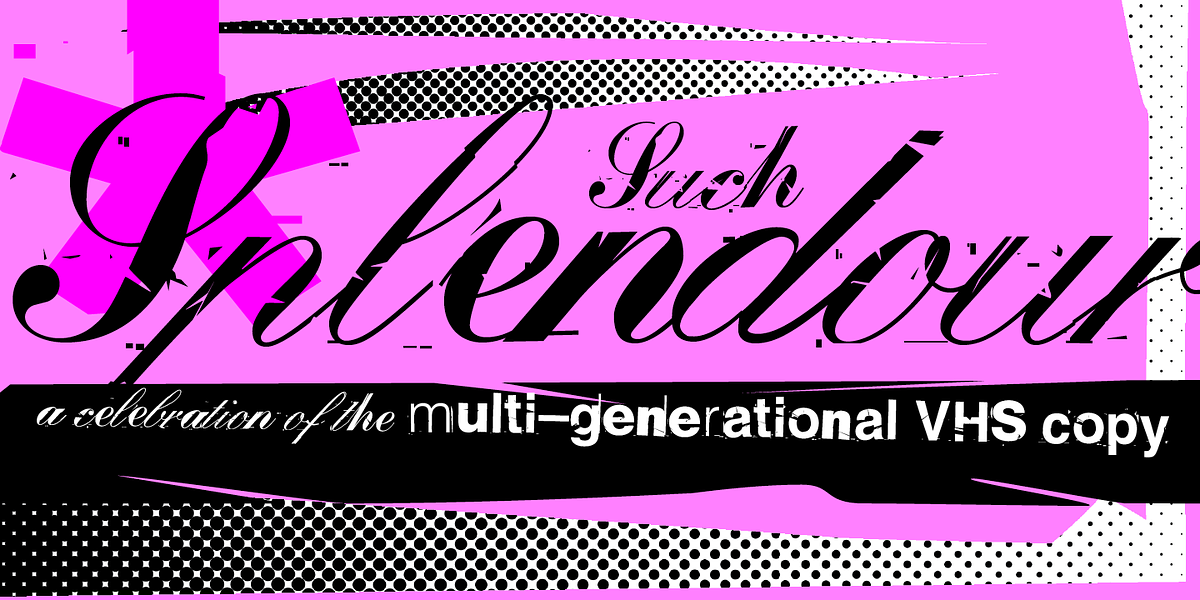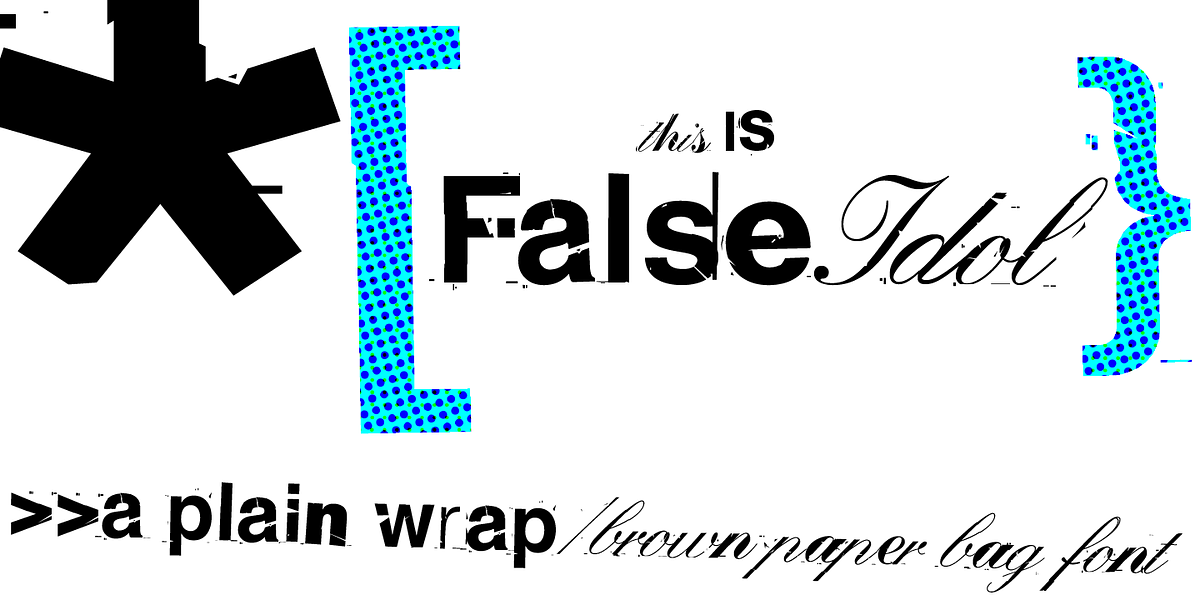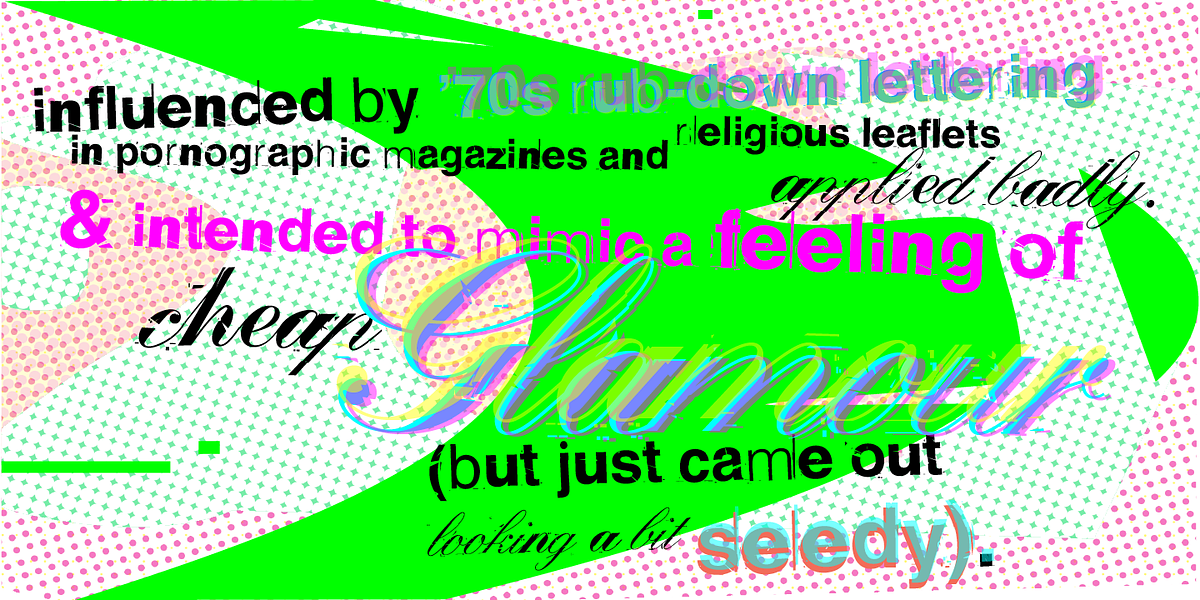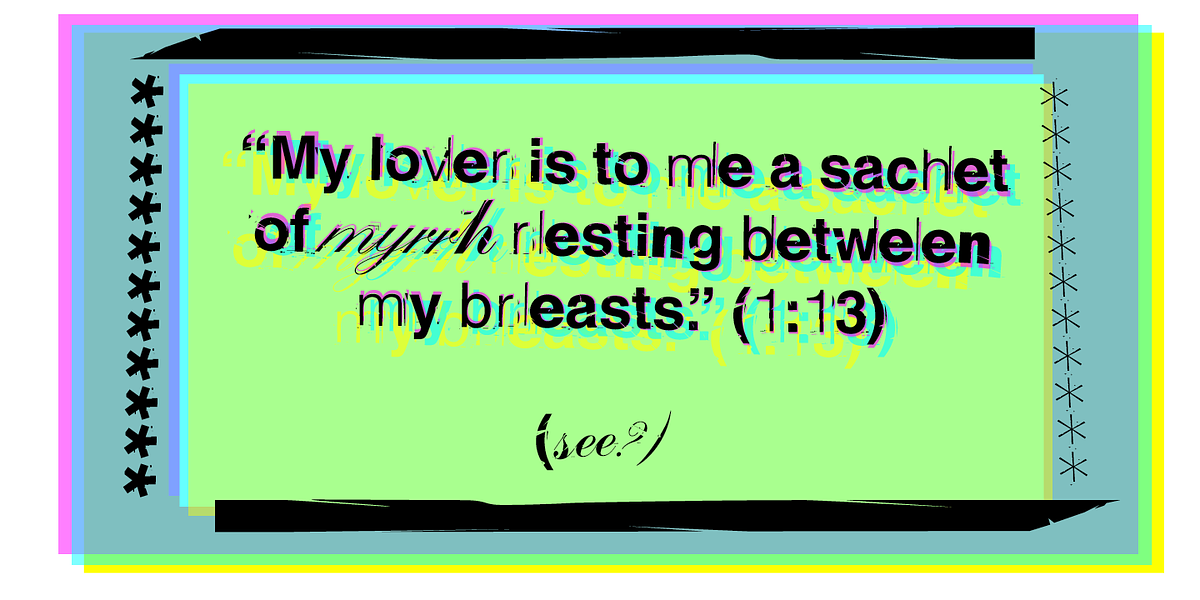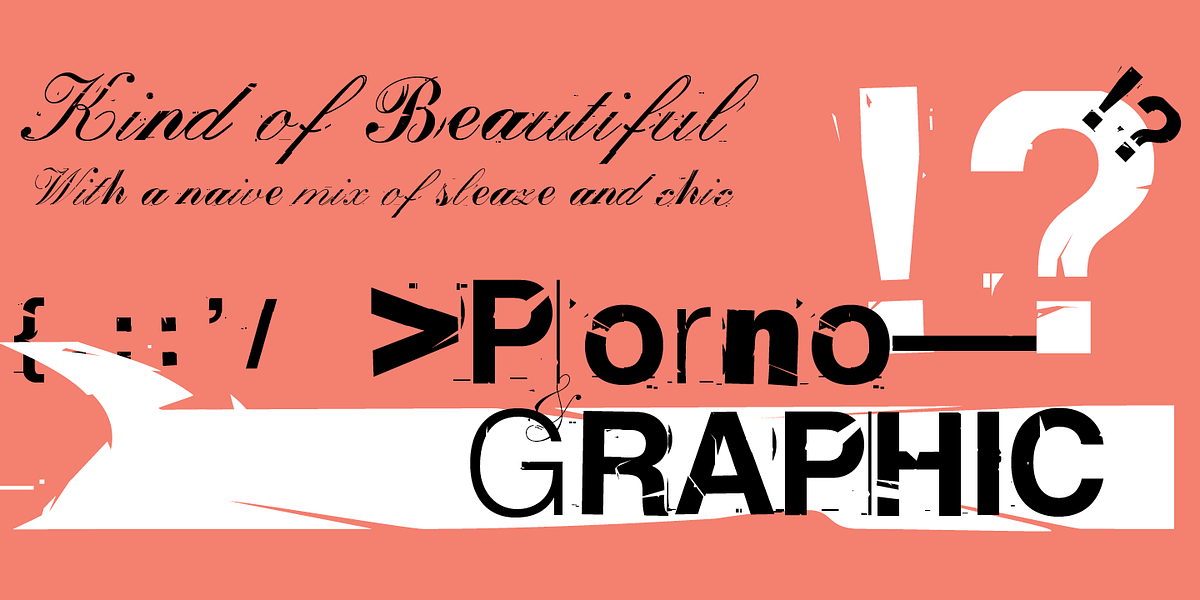
False Idol
False Idol is a grunge script font directly inspired by the aesthetic of 1970s pornographic magazines and homemade religious leaflets. Its letterforms are intentionally rough, uneven, and distressed, creating a feeling of cheap glamour that borders on seedy. Despite its origins, False Idol possesses an alluring beauty that has made it one of the most popular fonts in Barnbrook's catalog.